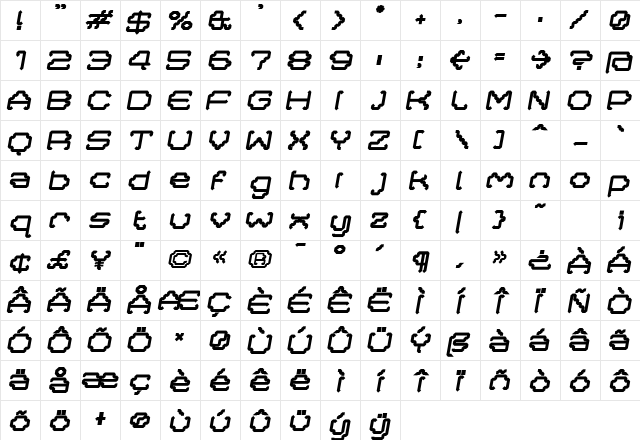
Masta Bold
Design Context for Masta Typeface
Masta takes a measured approach to typography — its balanced proportions and neutral character make it a reliable workhorse for both digital and print work. Its bold stroke weight gives it real presence on the page.